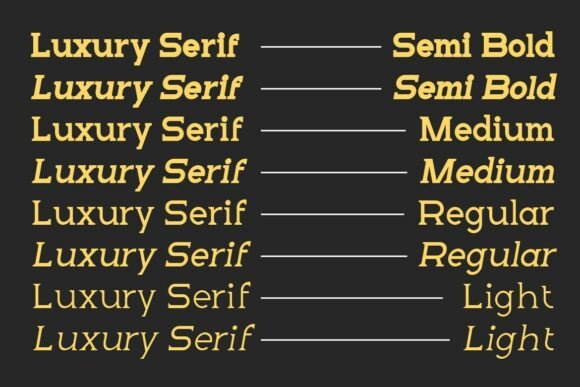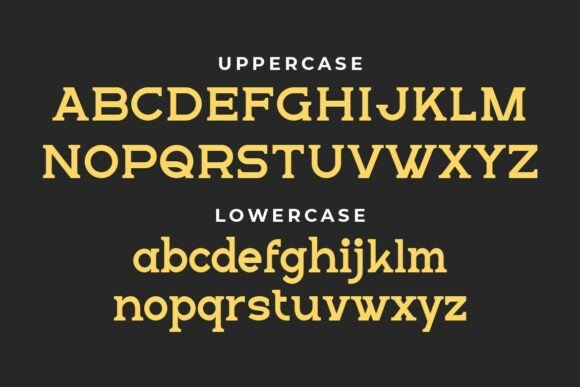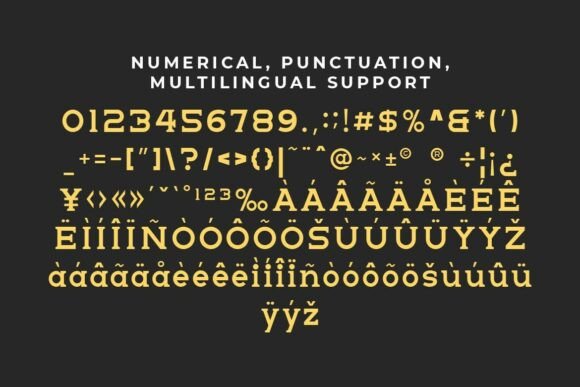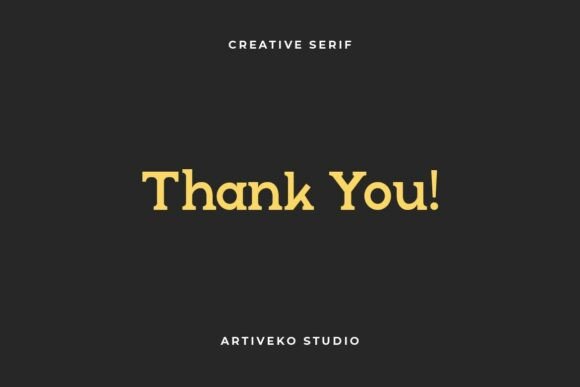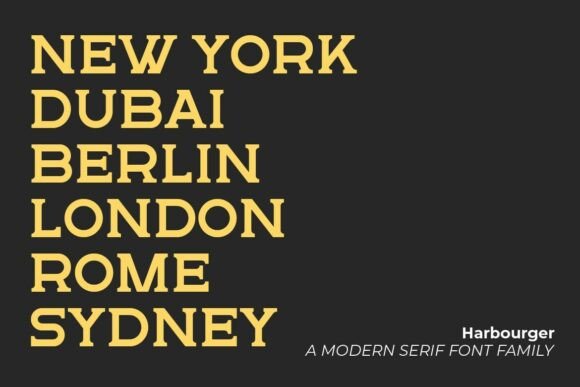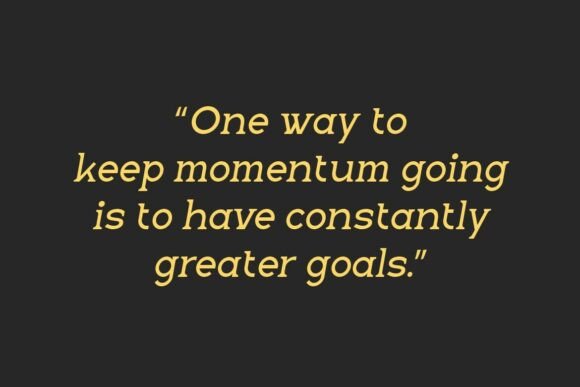
Introducing Harbourger Font: Elevate Your Design with Timeless Elegance
In the world of typography, a well-crafted font can elevate your design from ordinary to extraordinary. Harbourger Font is a stunning serif font that seamlessly blends traditional elegance with a refined modern twist, making it the perfect addition to your typographic arsenal. With its sharp serifs, balanced proportions, and smooth curves, Harbourger exudes sophistication and versatility, empowering designers and crafters to create visually stunning projects.
A Perfect Balance of Tradition and Modernity
Harbourger Font boasts a classic serif design that pays homage to traditional typography while incorporating subtle modern elements. The sharp serifs add a touch of refinement, while the balanced proportions ensure optimal readability. The smooth curves and rounded edges bring a sense of warmth and approachability, making Harbourger an excellent choice for a wide range of applications.
Harbourger’s versatility is one of its most compelling features. This font is suitable for various design projects, including:
- Branding: Establish a professional and high-class image for your business with Harbourger’s sophisticated and elegant design.
- Editorial Layouts: Add a touch of refinement to your publications, such as magazines, newspapers, and blogs.
- Book Covers: Create eye-catching and professional-looking book covers that convey a sense of luxury and sophistication.
- Wedding Invitations: Make your special day even more memorable with elegant and stylish wedding invitations featuring Harbourger.
- Premium Packaging: Elevate your product packaging with a font that exudes high-end quality and refinement.
- Stylish Logo Designs: Create a lasting impression with a professional and sophisticated logo design that incorporates Harbourger.
Why Choose Harbourger Font?
With Harbourger, you can expect:
- High-quality design: Crafted with attention to detail, Harbourger features a beautifully designed serif font that is both elegant and refined.
- Excellent readability: The balanced proportions and smooth curves ensure that your text is easy to read, even at smaller font sizes.
- Flexibility: Harbourger is suitable for a wide range of design projects, from branding and editorial layouts to book covers and packaging.
- Professional appeal: Add a touch of sophistication and high-class elegance to your designs with Harbourger.
Tips for Using Harbourger Font Effectively
To get the most out of Harbourger, consider the following tips:
- Pair with contrasting fonts: Combine Harbourger with a sans-serif font for a striking contrast that adds visual interest to your design.
- Experiment with font sizes: Use Harbourger in various font sizes to create a clear visual hierarchy and emphasize important information.
- Pay attention to spacing: Ensure that your text has sufficient spacing to maintain readability and prevent the design from feeling cluttered.
Harbourger Font is a timeless serif font that brings a sense of sophistication and elegance to your typography. With its sharp serifs, balanced proportions, and smooth curves, Harbourger is the perfect choice for designers and crafters seeking to elevate their designs. Whether you’re working on branding, editorial layouts, book covers, or packaging, Harbourger is sure to add a professional and high-class appeal to your project. Discover the versatility and beauty of Harbourger Font today and take your designs to the next level.